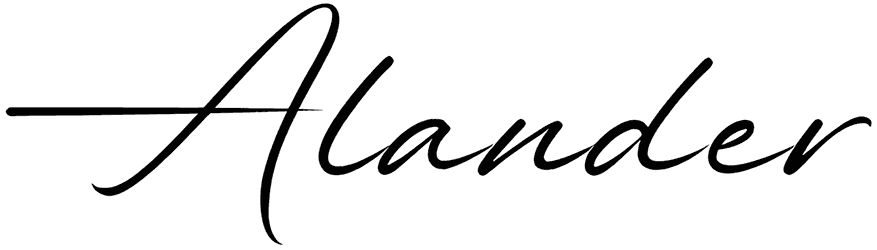
Alander Font
So real, so minimal, this is Alander as a handwritten font. This artistic calligraphy font will cause a dapper and nice mood in your design, but you can’t count on numbers with its face. Apply Alander in your coming desi…
So real, so minimal, this is Alander as a handwritten font. This artistic calligraphy font will cause a dapper and nice mood in your design, but you can’t count on numbers with its face. Apply Alander in your coming design, for instance, fashion designs, invitation cards, magazines, or more of the same, and be indelible.